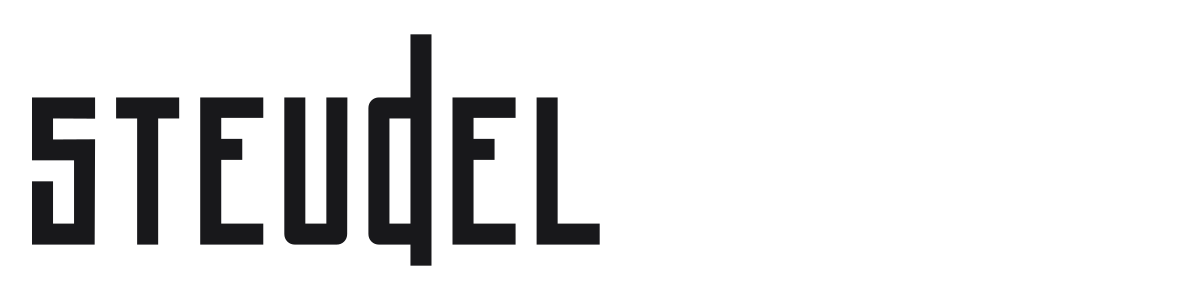
Steudel
Steudel is a tall, condensed geometric sans built entirely from squared, grid-locked forms with hard angular terminals and near-zero stroke contrast. Created for a photography visual identity, it carries a cold architectural precision that sits somewhere between constructivist lettering and modern brutalist design. It commands attention at large sizes without decorative compromise.